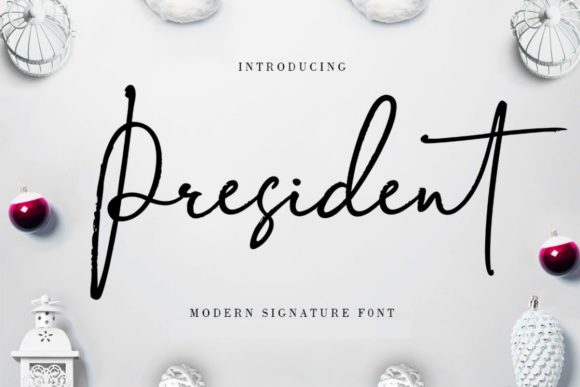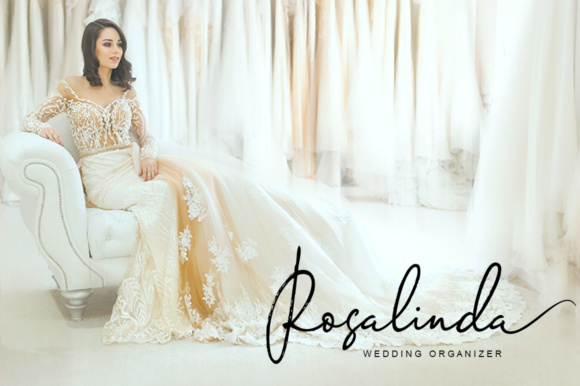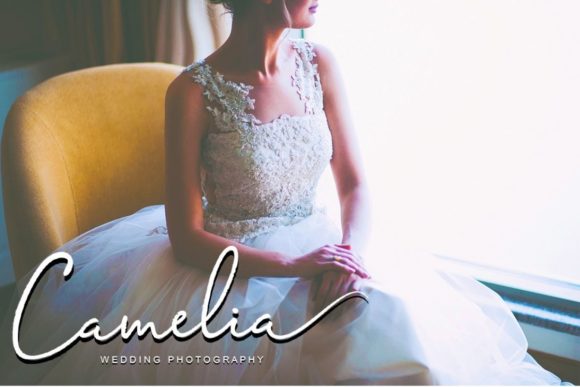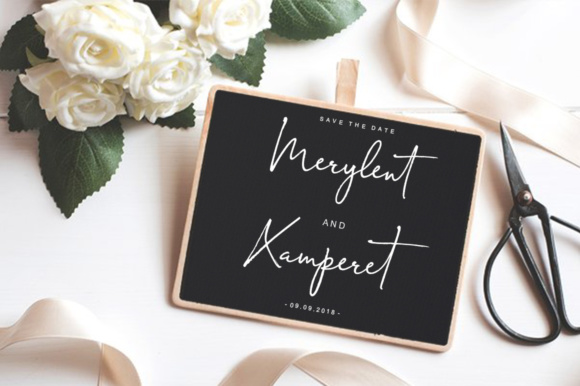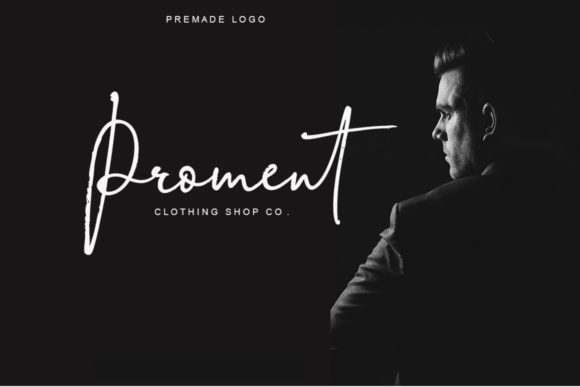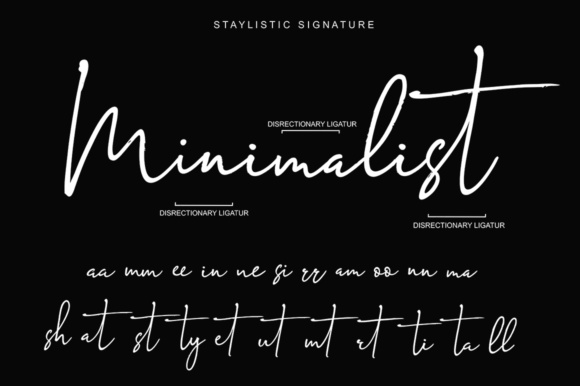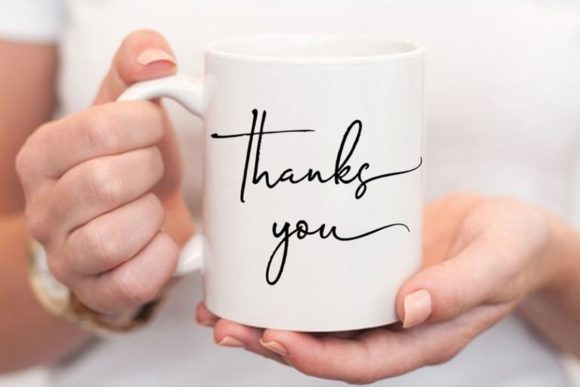
President Font
About President Font
President is a script font featuring a variable baseline. It has fine lines that give the font a classic, modern touch.
The President font will add a elegant touch to your designs.